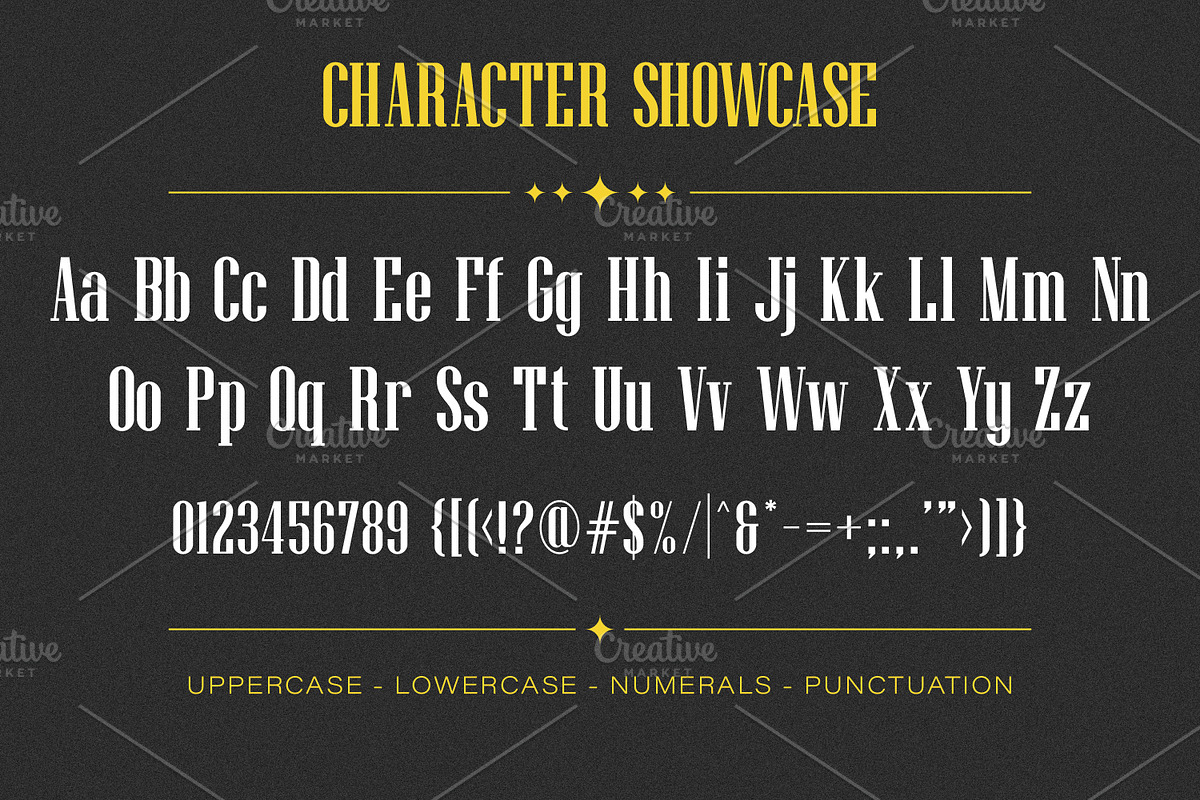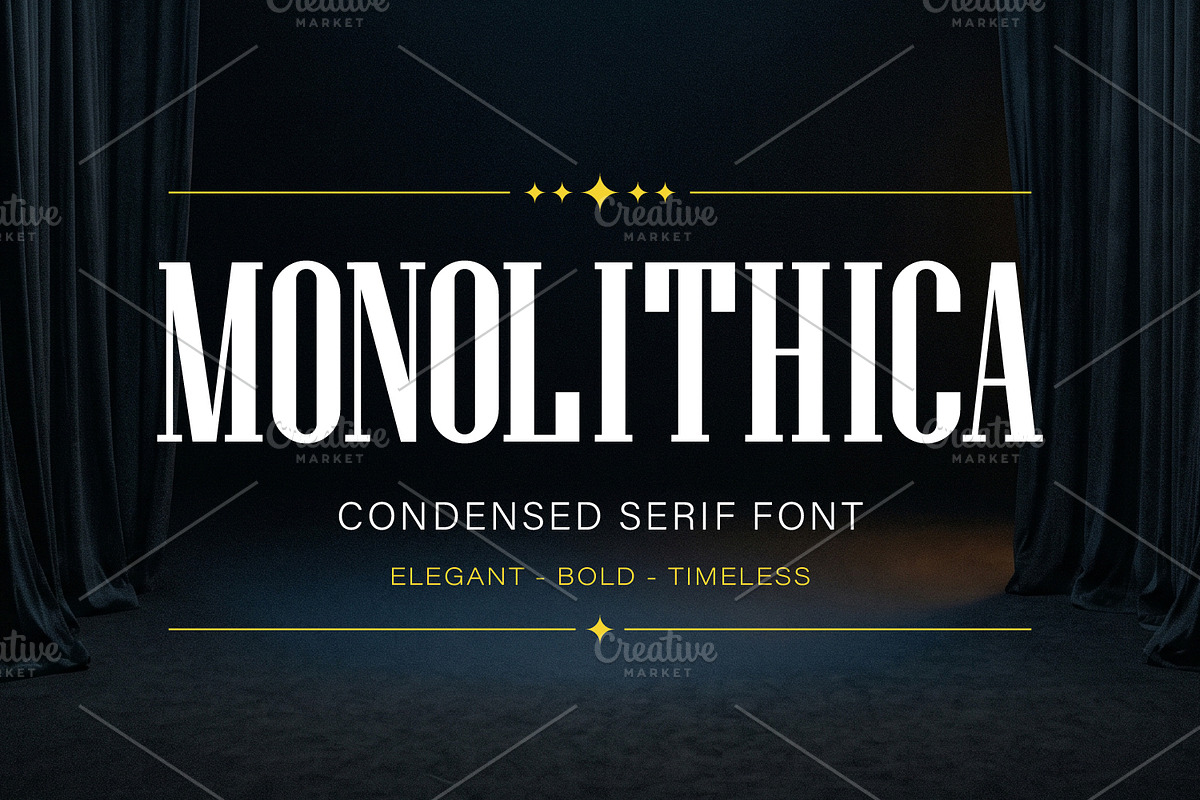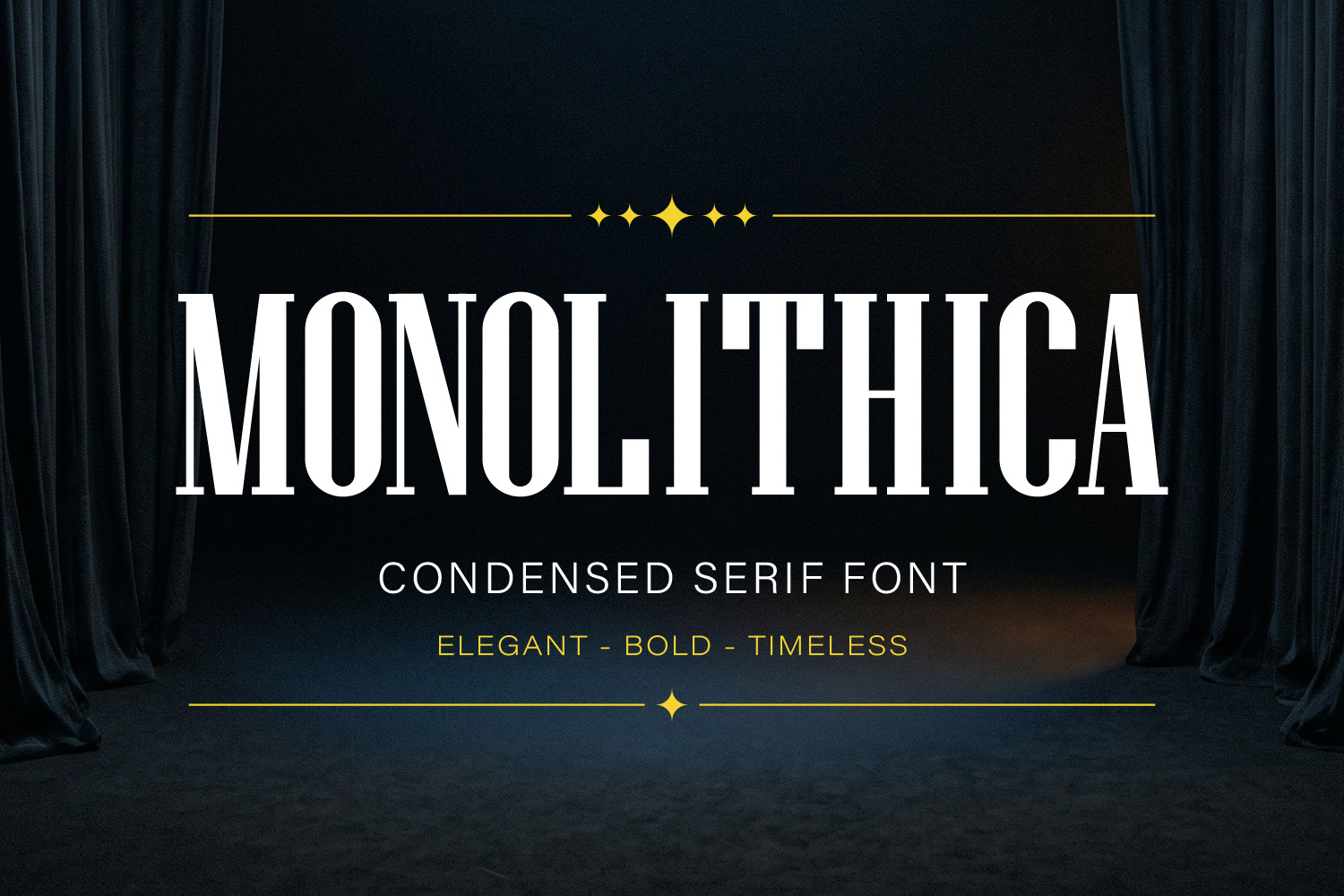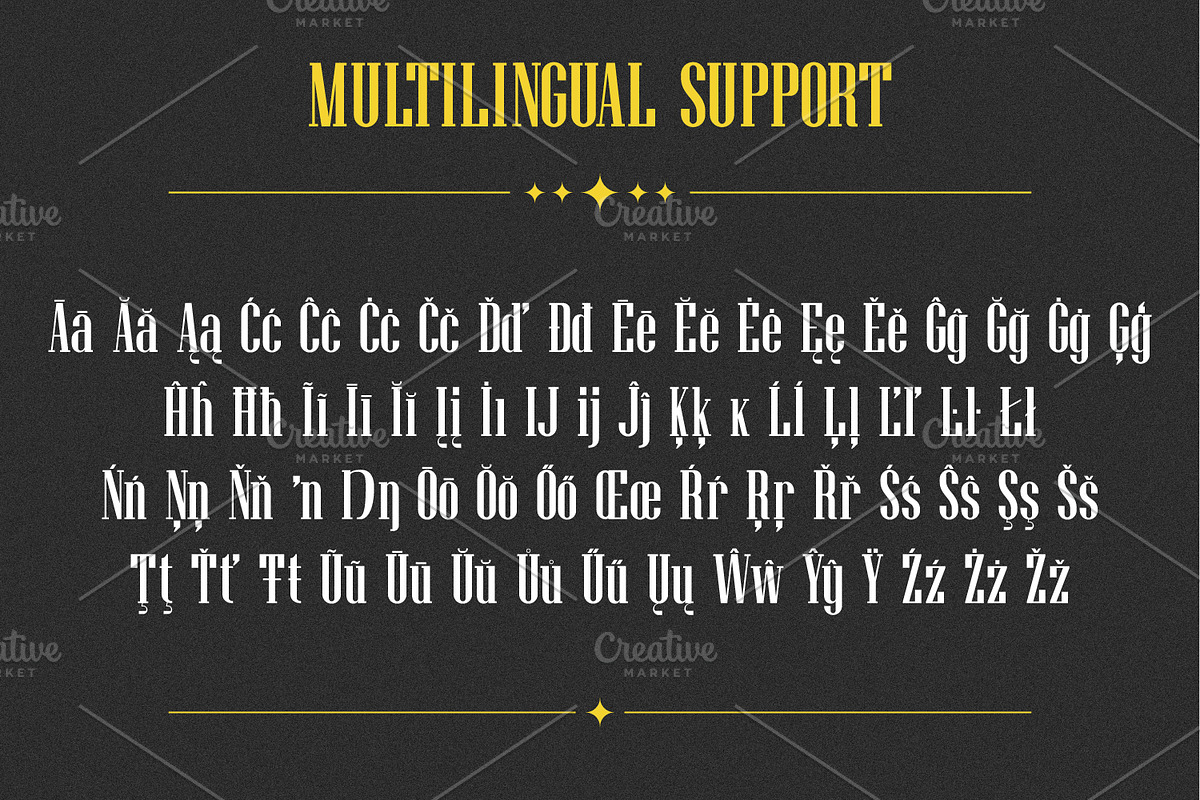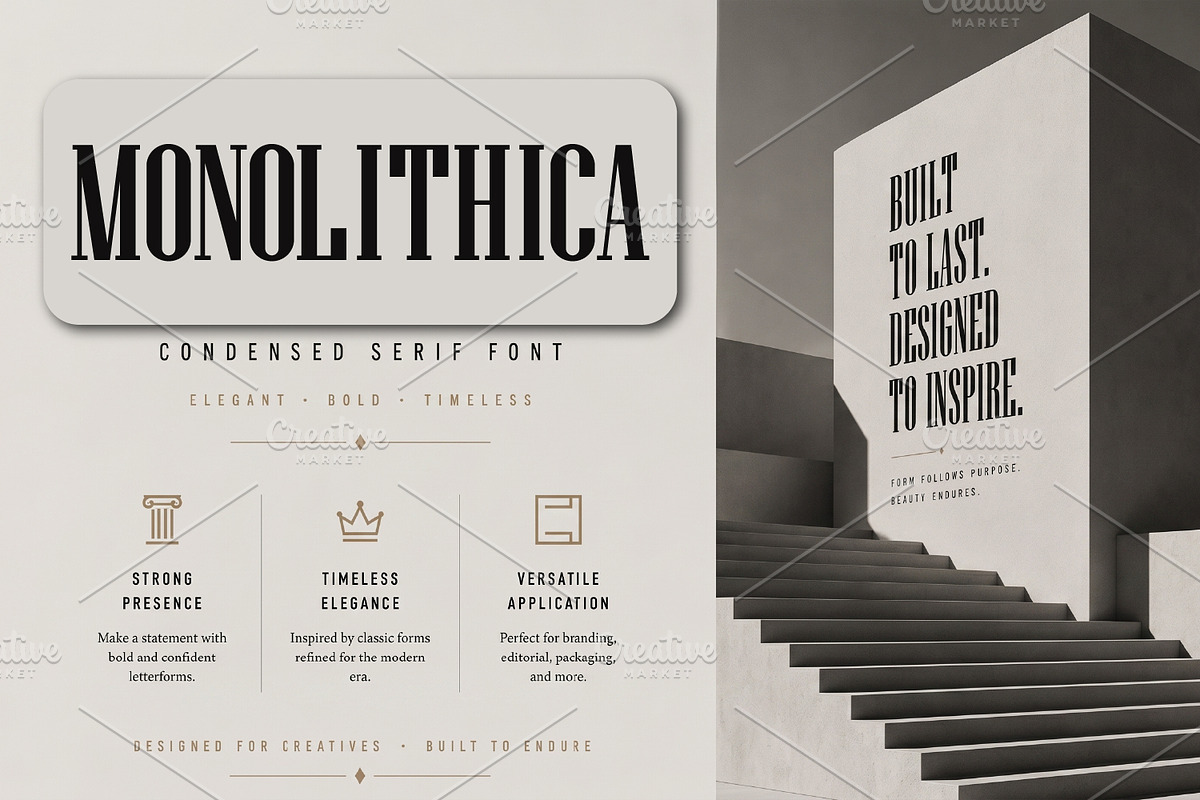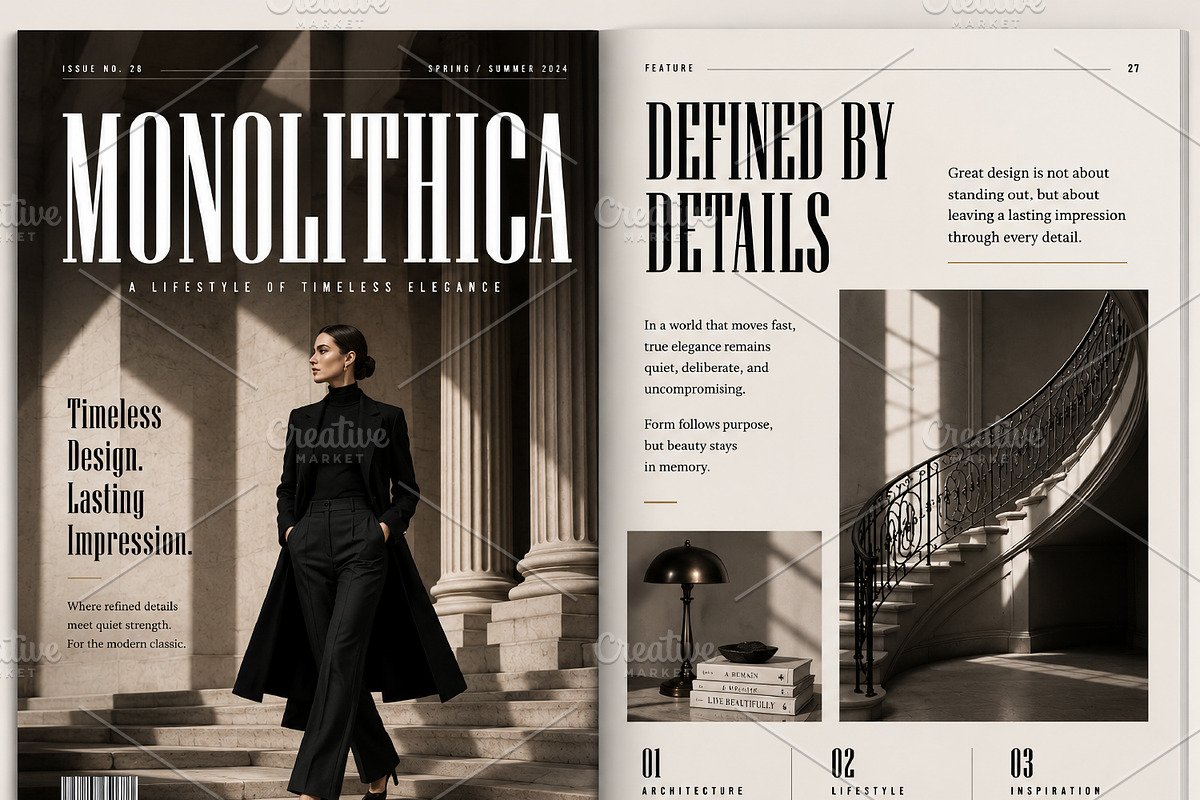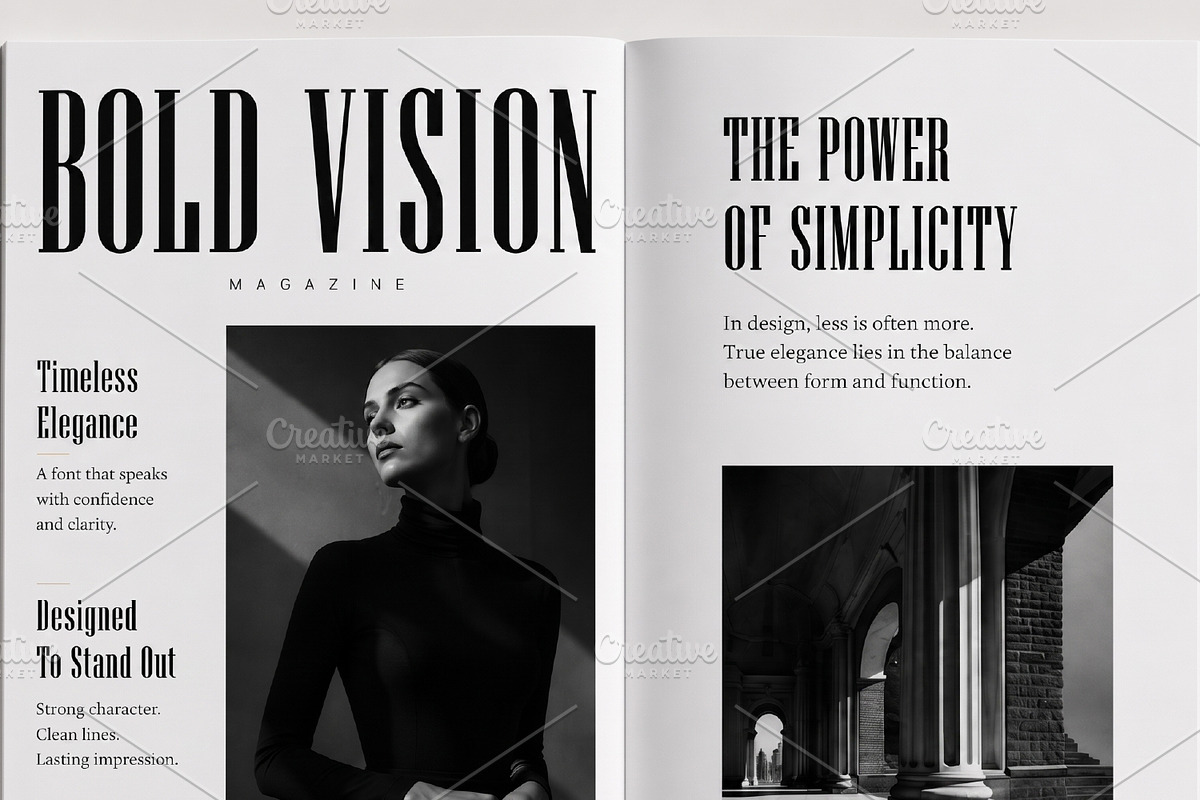
Monolithica serif font
Monolithica is a powerful condensed serif typeface designed to make a bold statement. Featuring dramatic vertical proportions, tight tracking, and sharp, refined serifs, this font commands attention while maintaining an elegant, sophisticated edge. Its towering letterforms create a striking, monumental impact, making it the perfect choice for high-impact headlines, editorial layouts, vintage-modern branding, posters, and book covers. When your design demands strength, structure, and undeniable presence, Monolithica delivers with style.